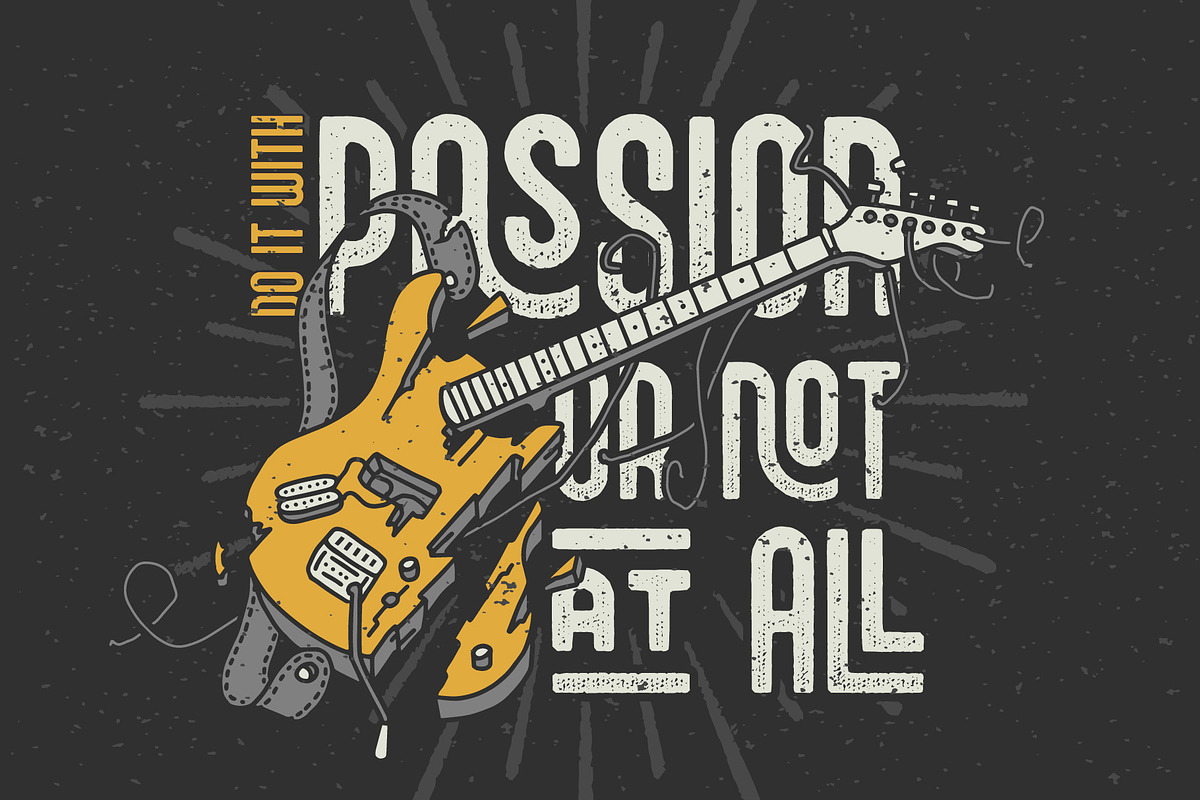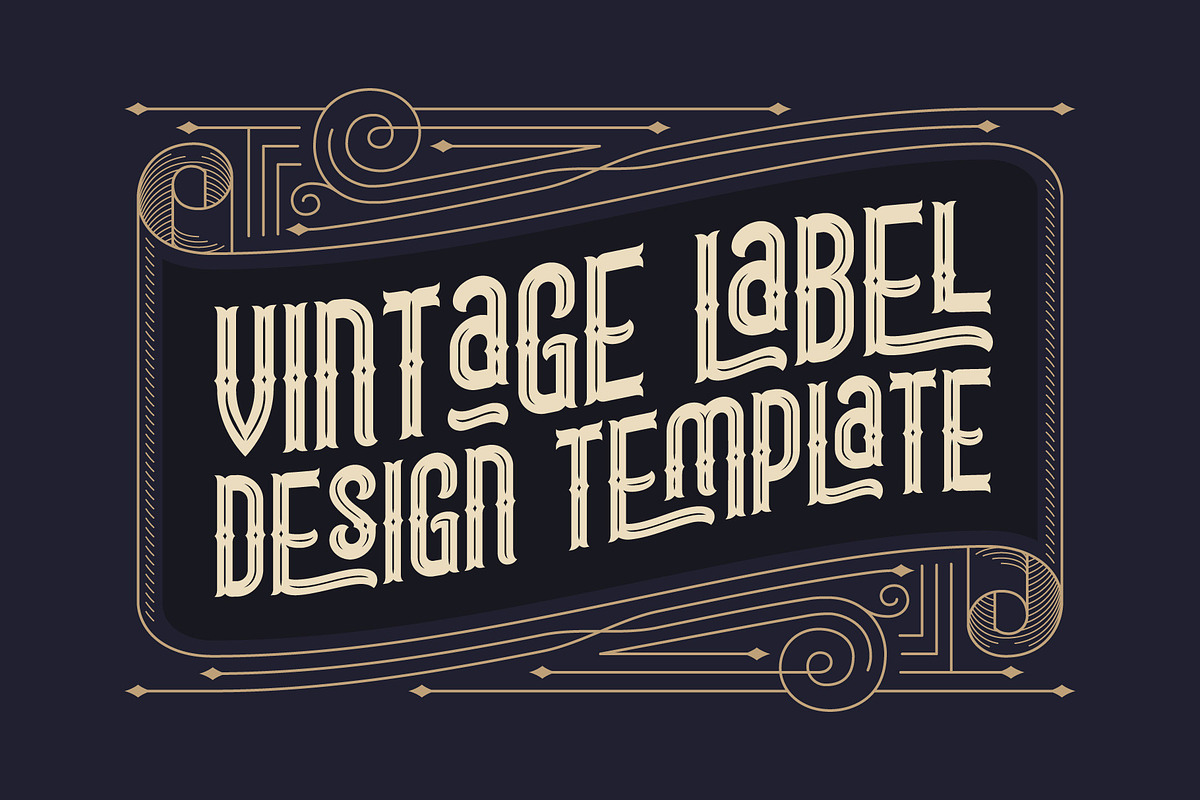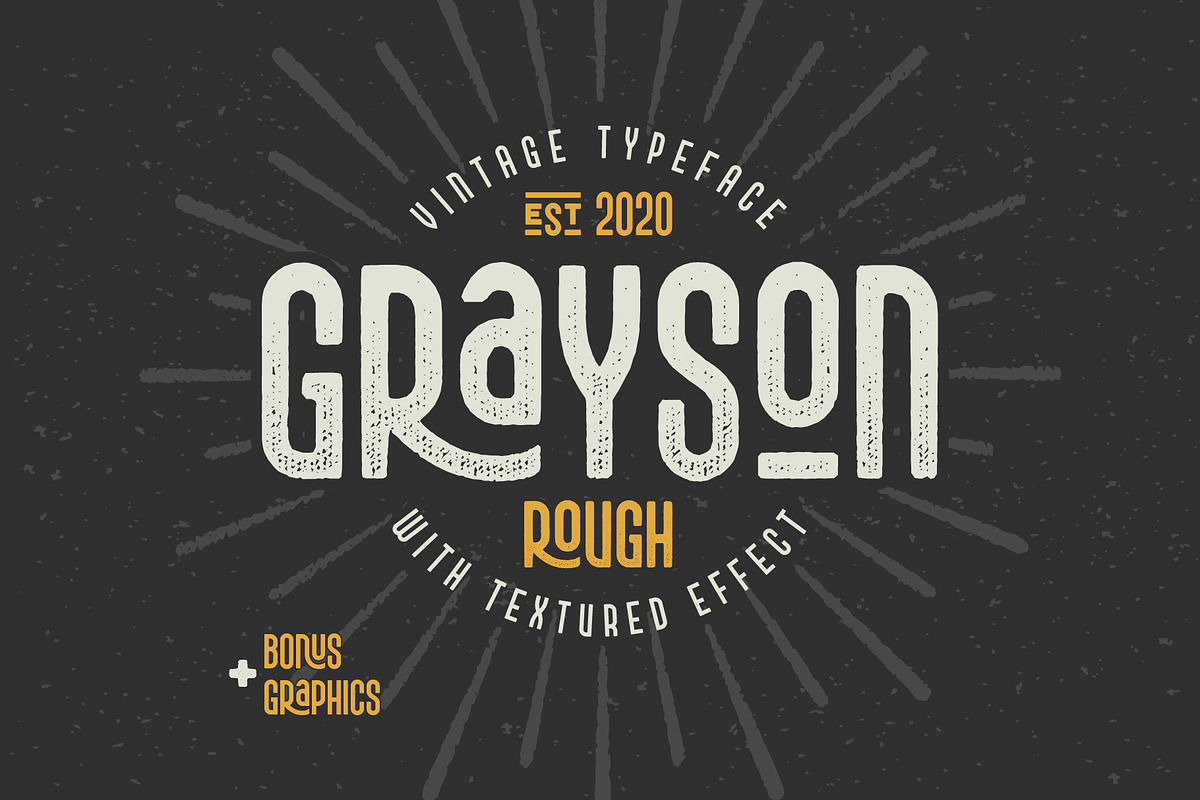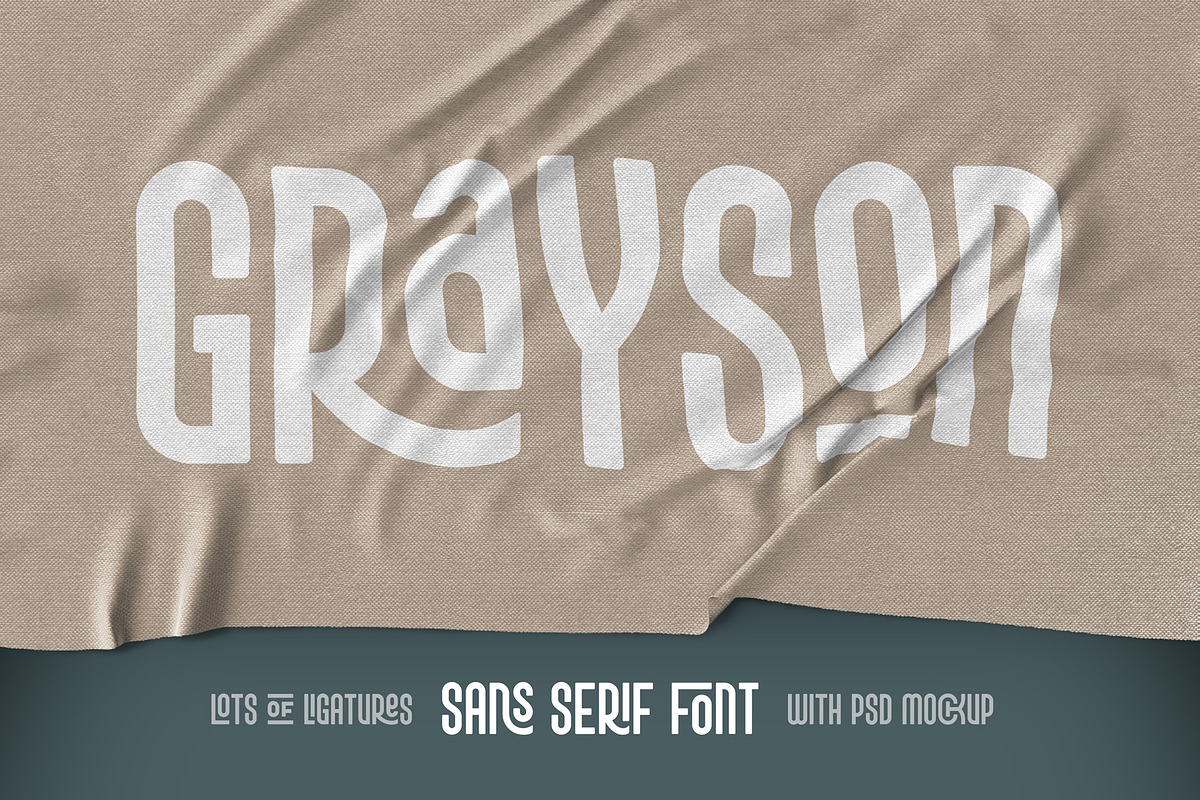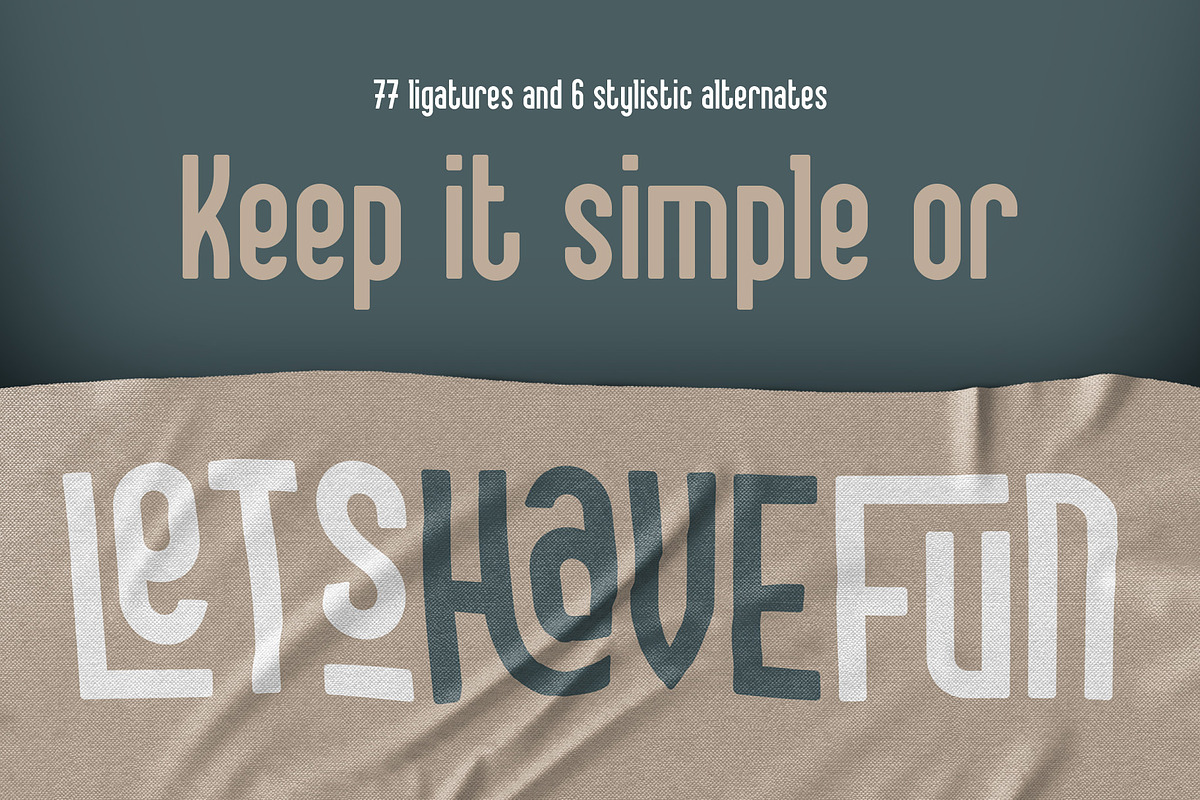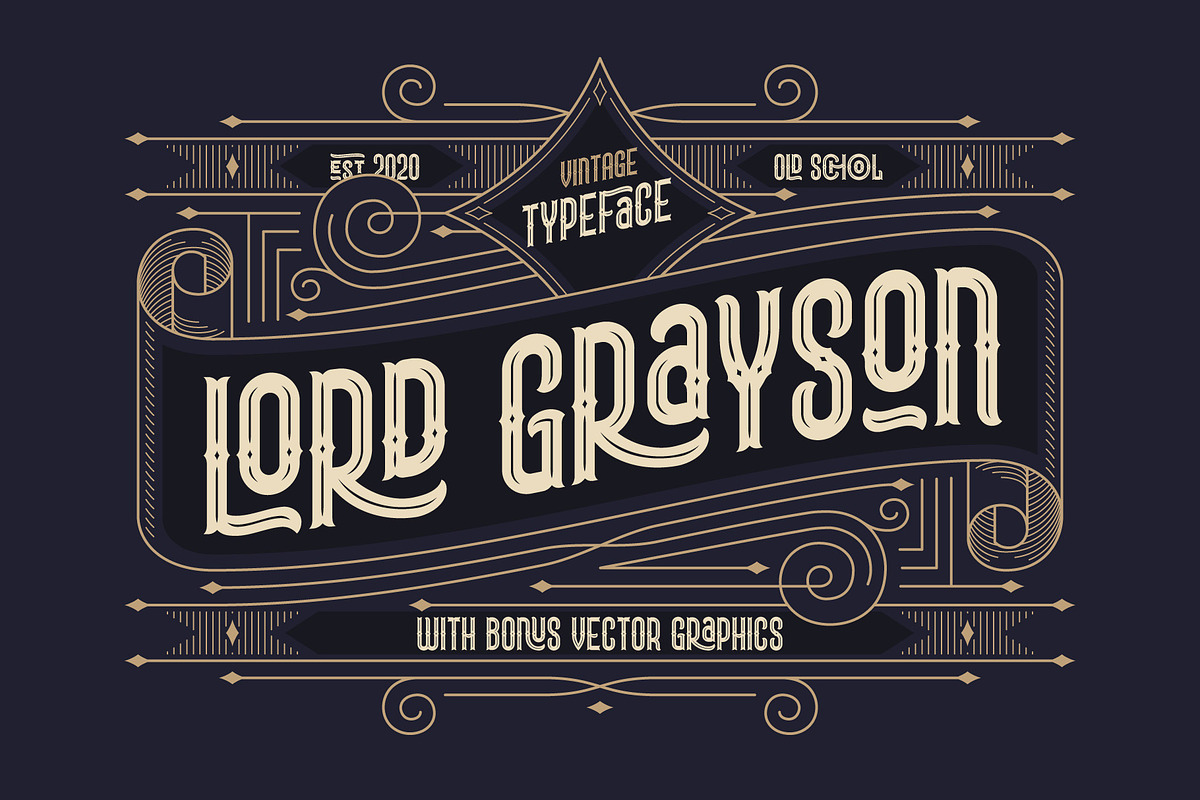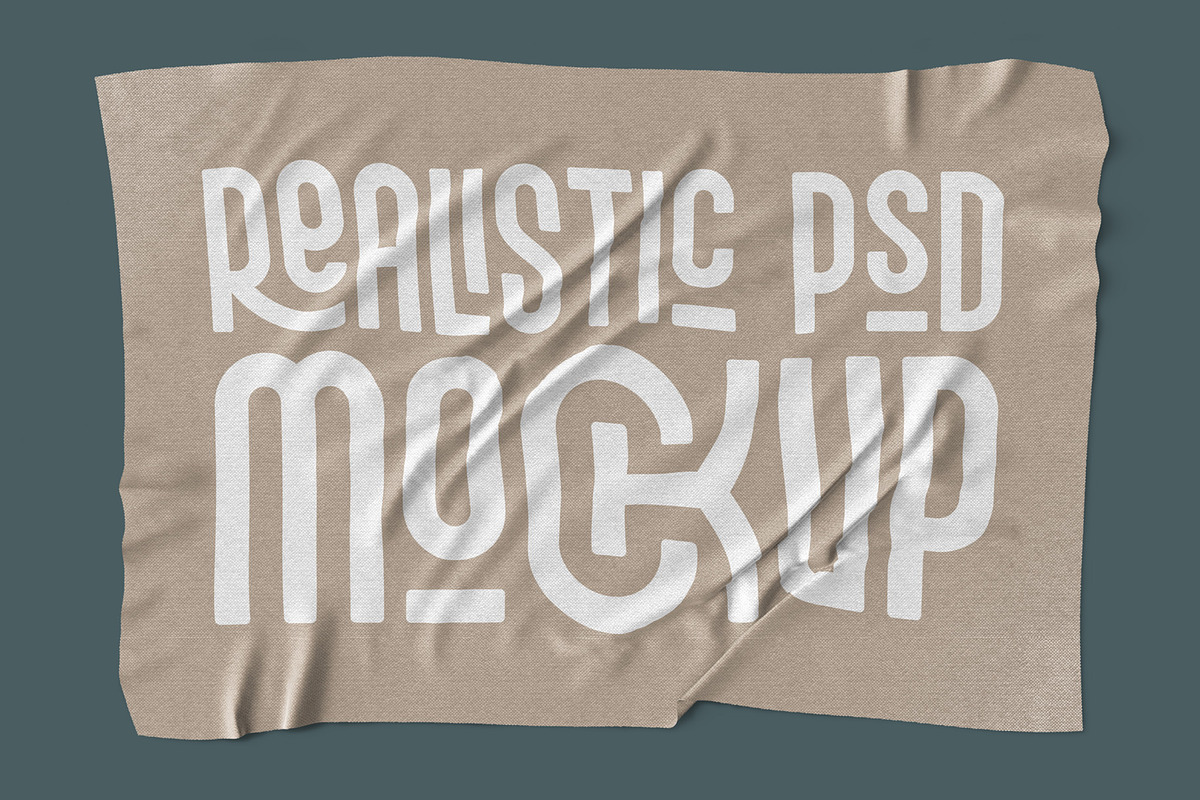
Grayson Font Pack. 55% OFF!
Presenting a font set that includes 3 typefaces from Grayson family with 55% OFF. All of this fonts have the same shape, but with different styles and effects. Grayson Regular is a straight grotesque, Lord Grayson have a classic decorative style and Grayson Rough has a grunge textured effect. Also lots of bonus graphics is included such as label template, mockup and vector illustrations.
- Grayson Regular
- Grayson Rough Regular
- Lord Grayson Regular